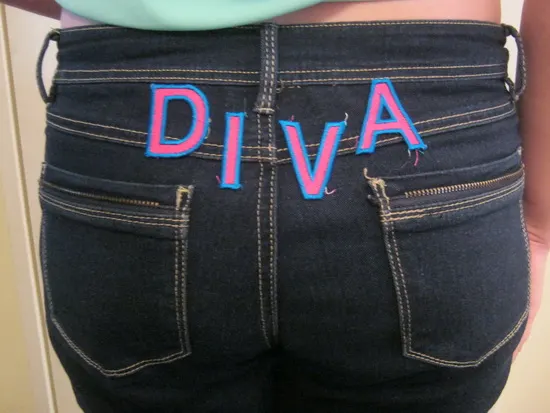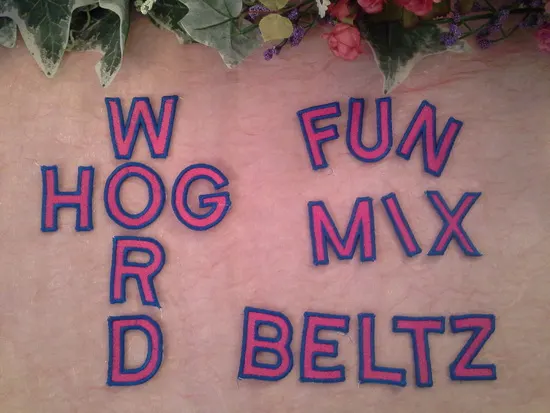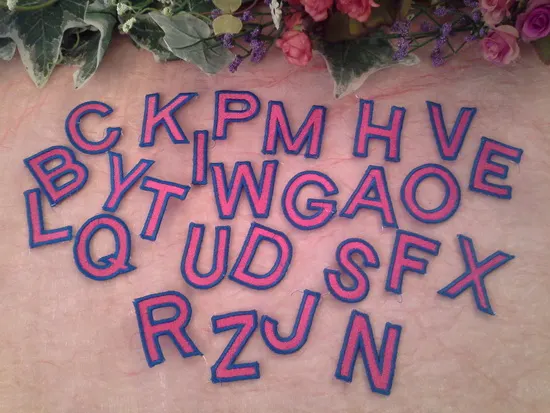
Have some fun with your jeans and the latest dance moves! Even if you can't dance, your jeans and tops can still look great! The letters are Free Standing Lace and stitching them out is a breeze. Attach them to clothing by hand stitching OR use Badgemaster and iron them on.... instant upgrade